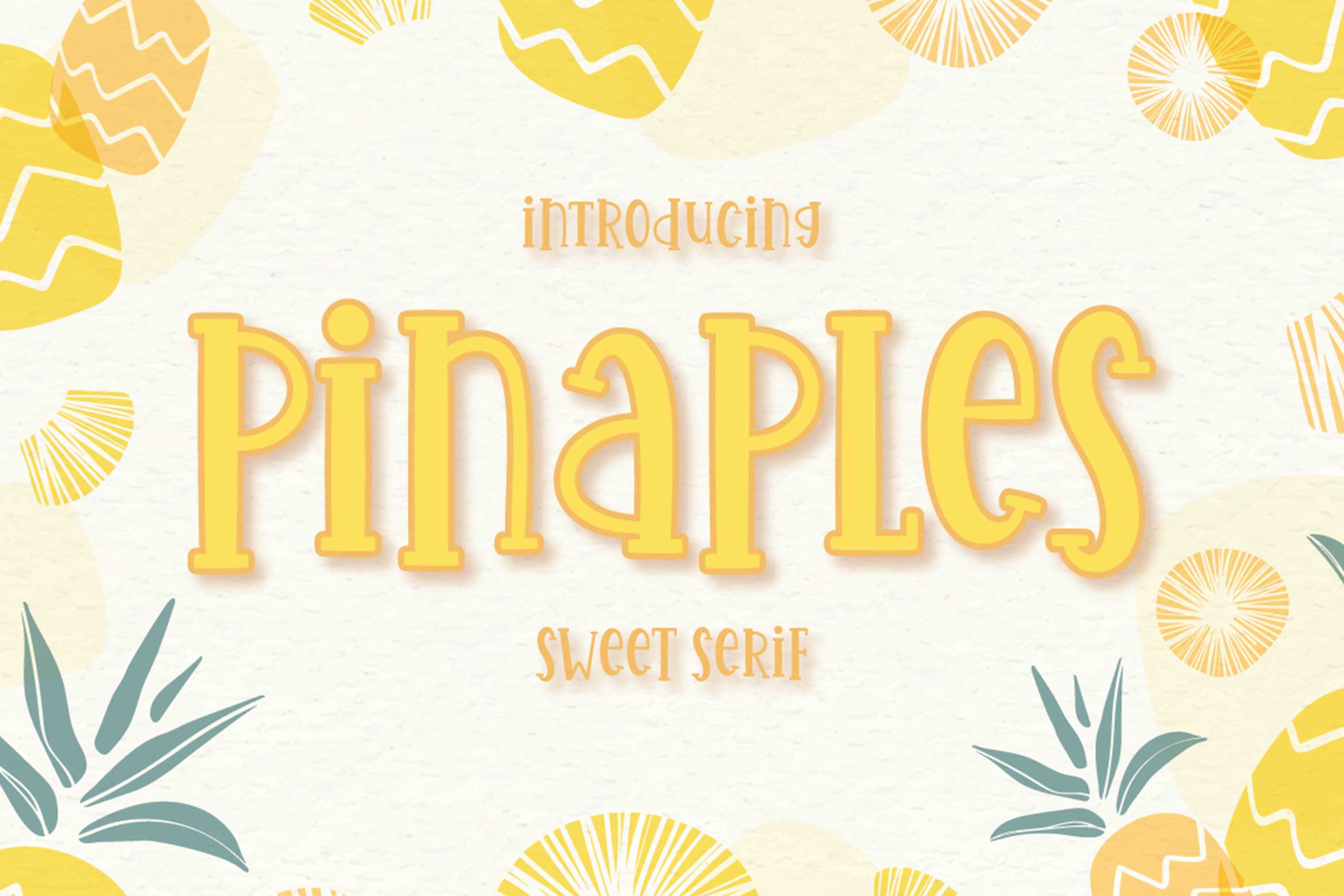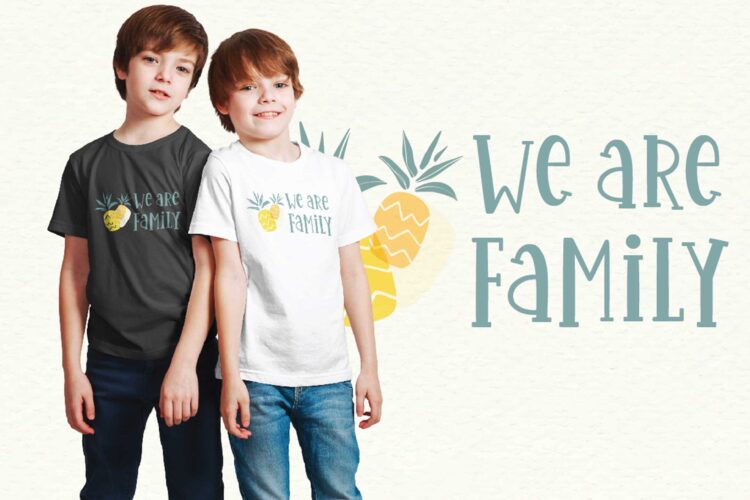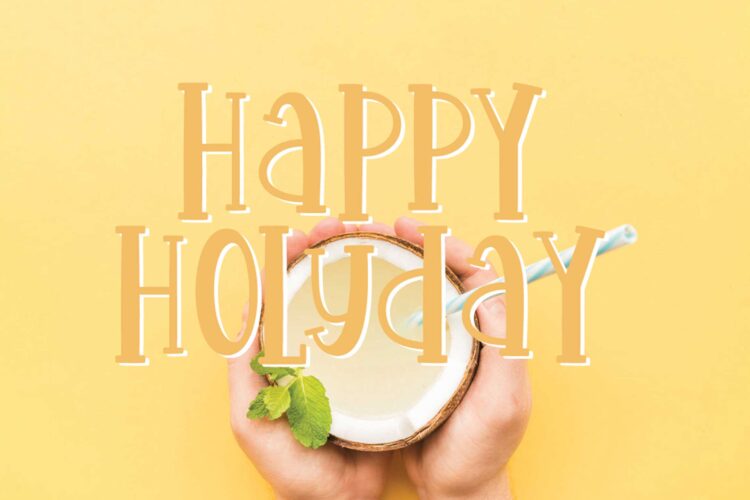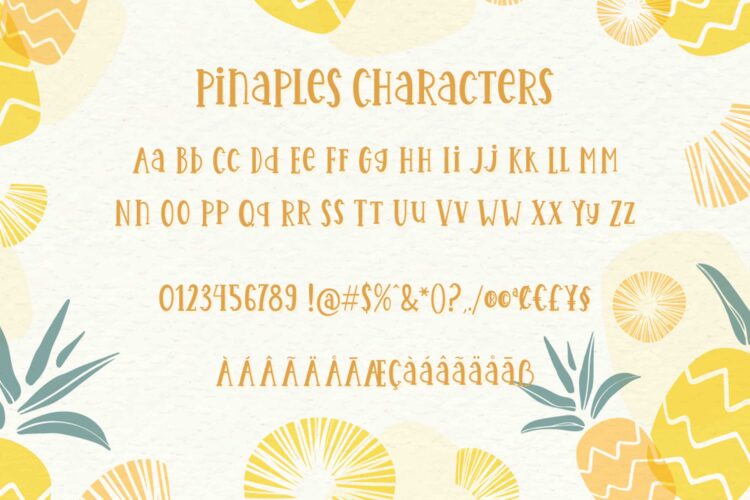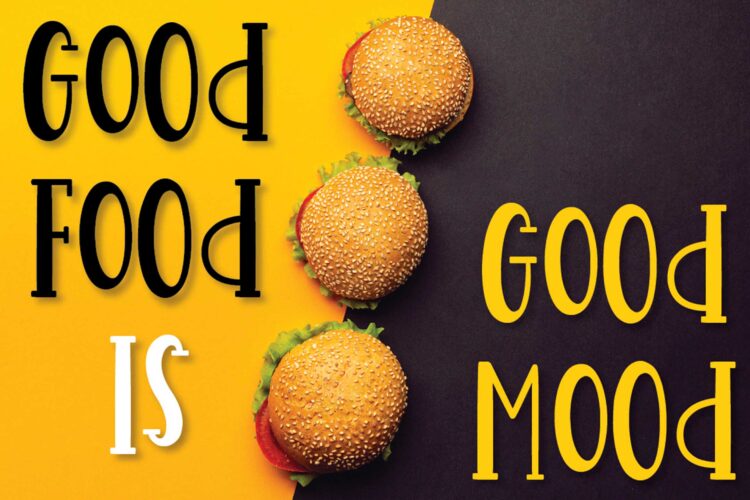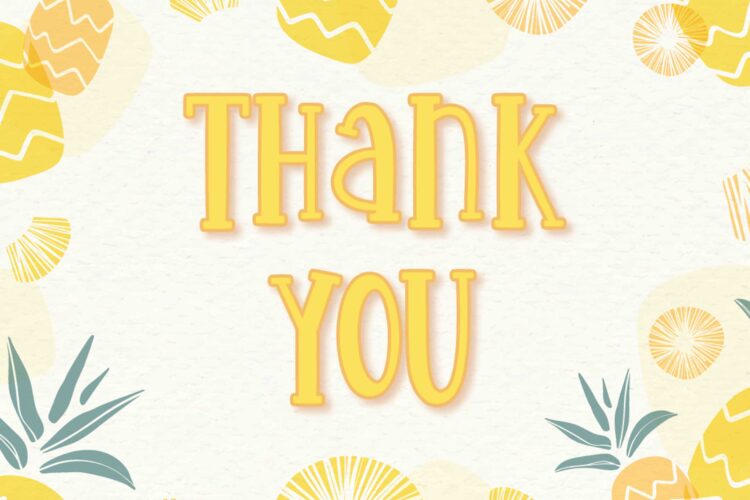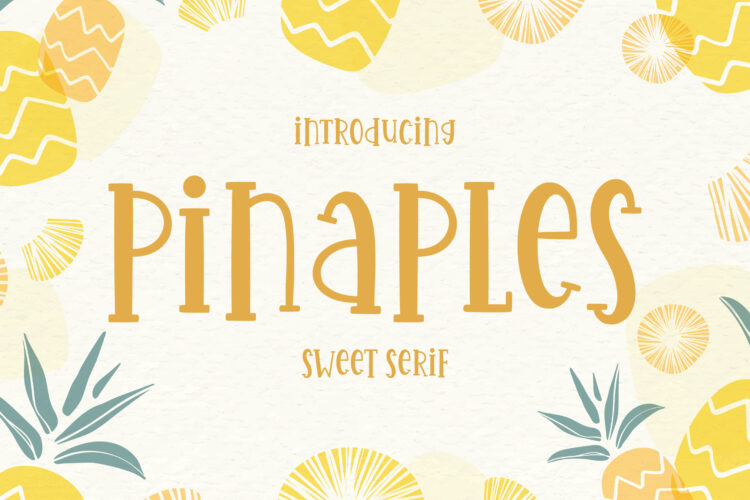
Introducing of our new product the name is Pinaples.Pinaples is modern and playfull slab serif, this font is a fun theme very good for banner, poster, food, branding. etc.
MULTILINGUAL ACCENT : ŽžŠŒšŸÀÁÂÃÄÅÆÇÈÉÊËÌÍÎÏÐÑÒÓÔÕÖØÙÚÛÜÝßàáâãäåæçèéêëìíîïñòóôõöøùúûüýÿ
Pinaples | Display Font